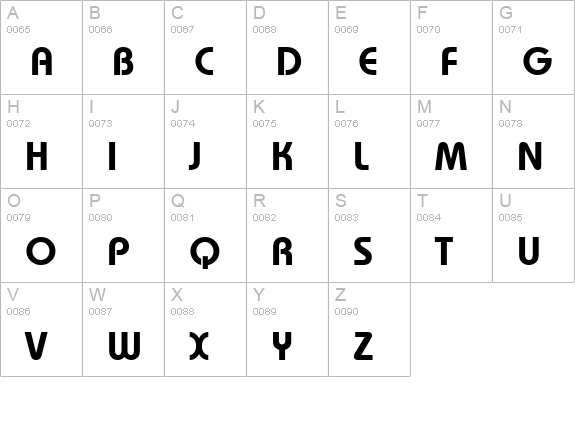
BauhausLightCTT Bold is a strong, high-contrast variant in the BauhausLightCTT typeface family \xE2\x80\x94 well suited to headlines, attention-grabbing titles, and strong calls-to-action.
BauhausLightCTT Bold font is a striking and modern typeface that exudes sophistication and elegance. Its clean lines and bold strokes make it perfect for attention-grabbing headlines and branding projects. This versatile font is ideal for a wide range of design applications, from logos to posters to websites. The best part? BauhausLightCTT Bold font is completely free to download at FontsMarket.com. This means you can easily access this high-quality typeface without any cost, making it a fantastic option for both personal and commercial projects. Don't miss out on this opportunity to enhance your designs with the sleek and stylish BauhausLightCTT Bold font. Download it now and start creating stunning visuals today!